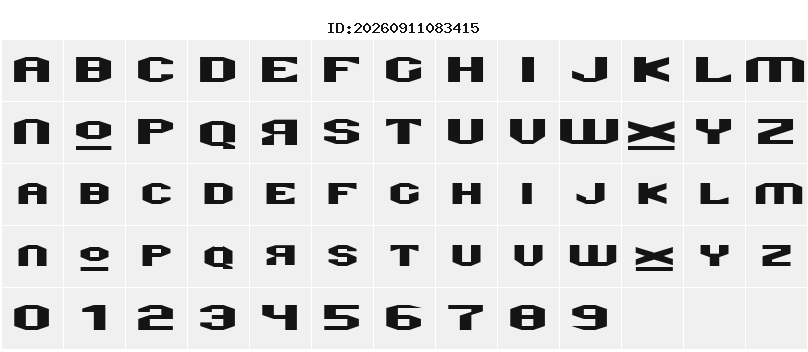
Valkyro Preview
About Valkyro.ttf
Valkyro.ttf is a modern, elegant sans-serif font designed for ultimate readability and visual harmony. Perfect for branding, headlines, web design, and print materials.